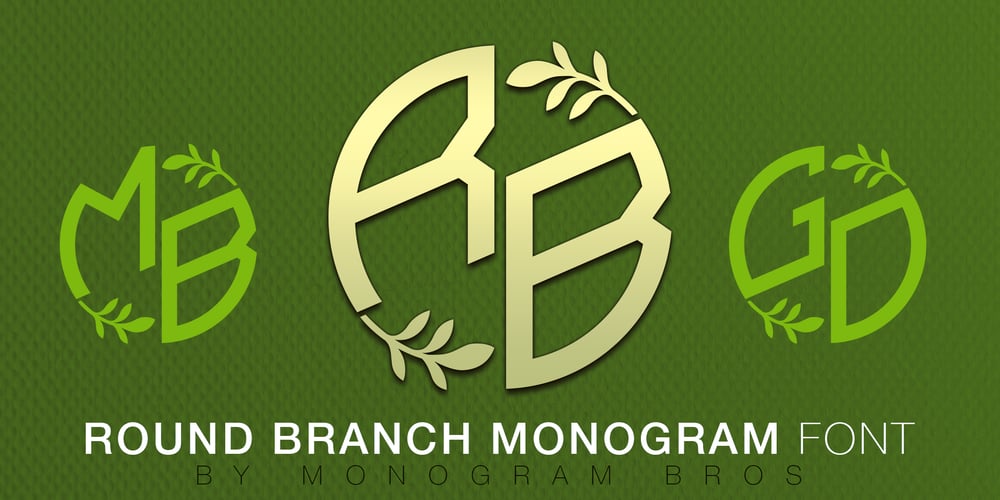
Round Branch Monogram Font Family was designed by Andrei Isakau and published by MonogramBros. Round Branch Monogram contains 1 styles and family package options. Round Branch Monogram Font is a perfect shaped monogram font consisting of 52 letters. With just a single font file you will be able to create beautiful monograms in just a matter of minutes after the purchase! Round Branch Monogram Font comes with font file in OTF format.